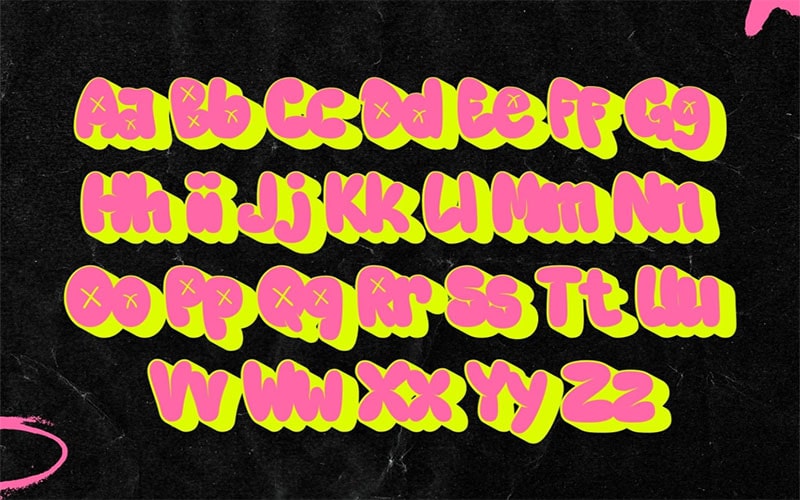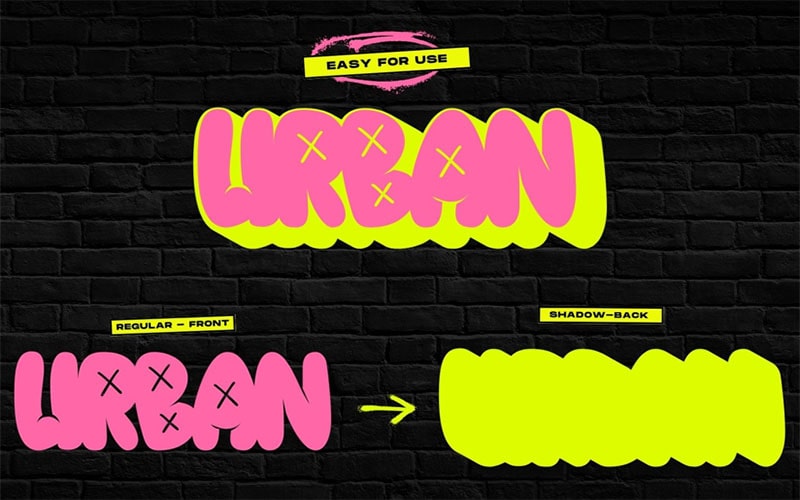
Graffiti Bubble Font captures the essence of street art with its playful, bold, and rounded letterforms. It brings an urban, edgy vibe to any project, making it ideal for designs that need a touch of creativity and street culture.
It was designed by Nirmana Visual, who drew inspiration from the urban graffiti scene. The designer’s experience in creating street-inspired typefaces is evident in this font’s authentic and energetic design.
It includes a comprehensive character set, featuring Uppercase letters, Lowercase letters, Numerals, Punctuation marks, Special characters, and symbols.
This character set ensures the font can be used in various text-based applications while maintaining its unique, playful style. Let’s have a look at its unique texture.
This Font typically comes in a single, vibrant style that mimics the look of bubble graffiti. This style features bold, rounded edges and a fun, dynamic appearance, perfect for attention-grabbing headlines and creative designs.
Typically, a commercial license may be required for professional projects. The font’s bold, rounded letterforms capture the playful and dynamic essence of street graffiti.